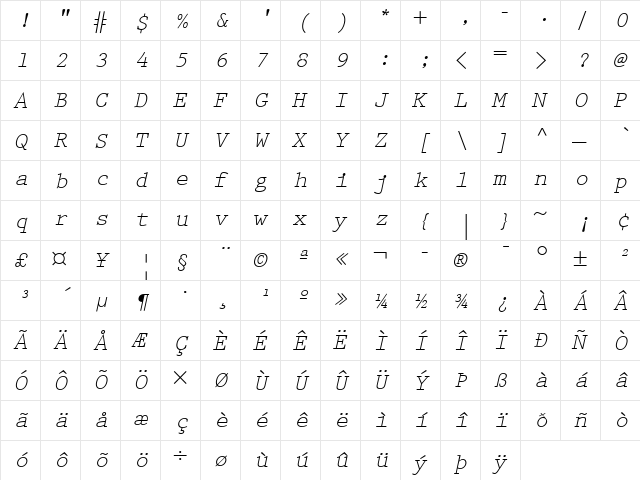
Prestige LT Elite Italic Font Preview
Design Context for Prestige LT Elite Typeface
Prestige LT Elite takes a measured approach to typography — its balanced proportions and neutral character make it a reliable workhorse for both digital and print work. Its italic angle brings a sense of urgency and motion to the letterforms. The delicate stroke weight brings airiness and refinement to layouts.
Pro Tip: Try Prestige LT Elite for annotation and caption copy alongside an upright companion — the contrast in angle creates a dynamic but ordered typographic system.